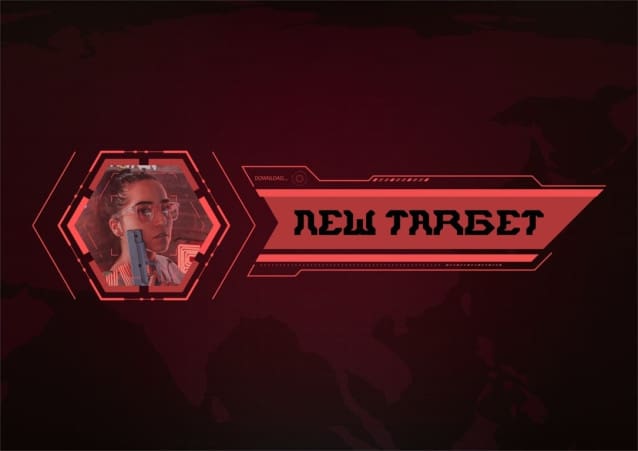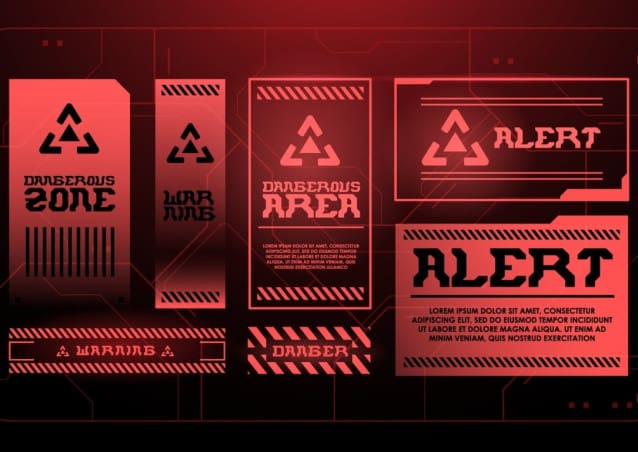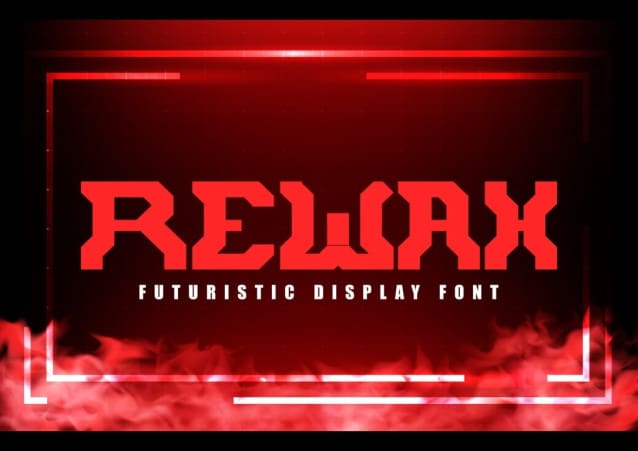
Rewax Futuristic Font
Rewax Futuristic Font is a futuristic cyber font, inspired by sci-fi and technology. Designed the font with a modern feel to achieve the theme. Suit perfectly for future and science segmented magazine, marketing design, technology, sci-fi design, poster, movie title, music poster, youtube covers, youtube thumbnails, social media page covers, poster designs, headlines, typography projects (streetwear, construction, resistance, solidarity, movement, revolution), E-Sport logos, sports jersey text, and much more.